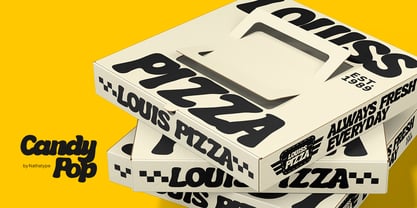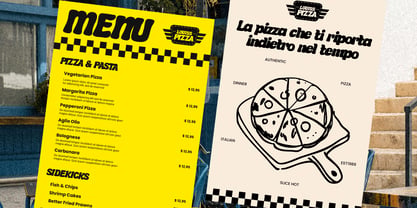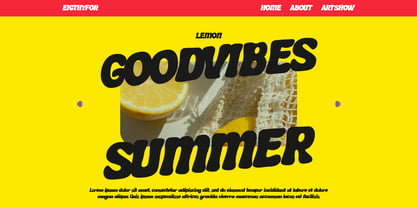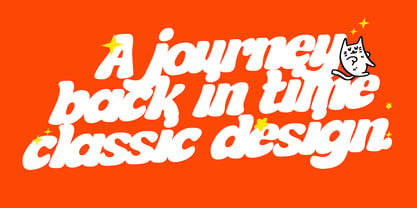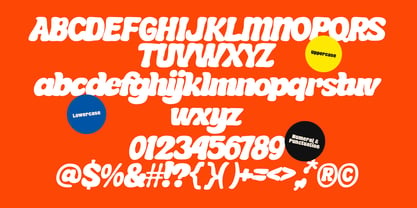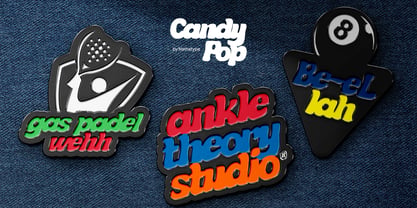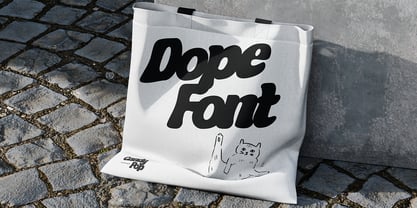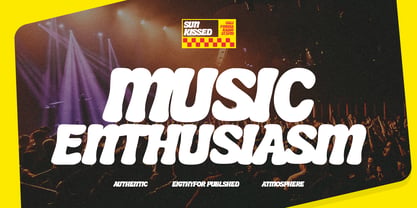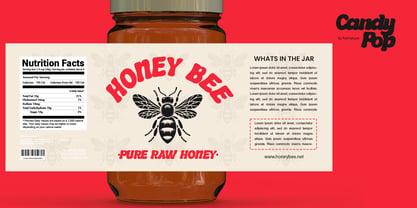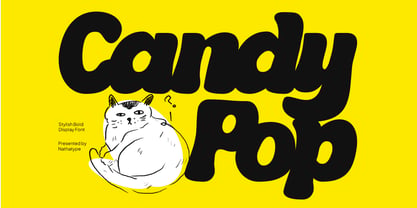
Candy Pop
Die Schriftfamilie Candy Pop wurde von Donis Miftahudin entworfen und von Nathatype veröffentlicht. Candy Pop enthält 1 Stile. Mehr über diese Familie
Candy Pop is a stylish display font designed to deliver bold visual impact. The bold structure of Candy Pop makes every letter stand out, while the low contrast keeps the design smooth and cohesive. This balance allows the font to shine in large sizes without feeling overwhelming. Candy Pop is perfect for designers who want eye-catching typography that feels contemporary, playful, and full of personality. In addition, enjoy the features here. Features: Multilingual Supports PUA Encoded Numerals and Punctuations Candy Pop fits in logos, quotes, branding, posters, and many more designs. Find out more ways to use this font by taking a look at the font preview. Thanks for purchasing our fonts. Hopefully, you have a great time using our font. Feel free to contact us anytime for further information or when you have trouble with the font. Thanks a lot and happy designing.